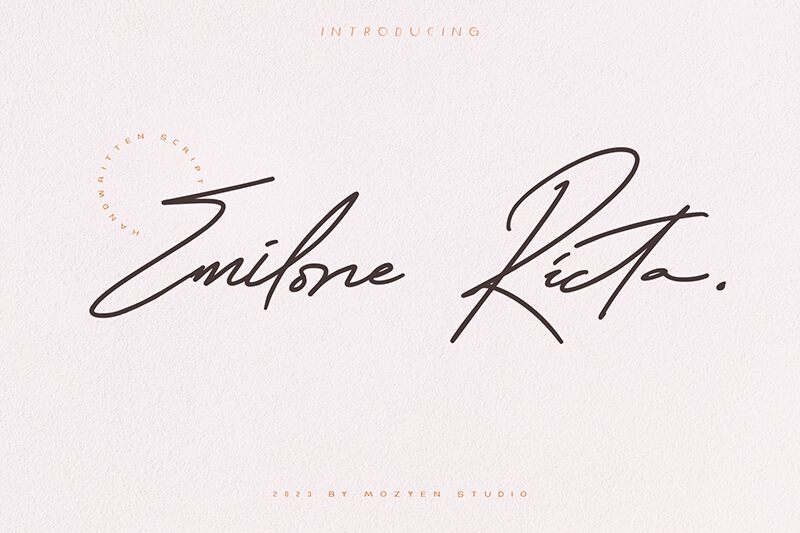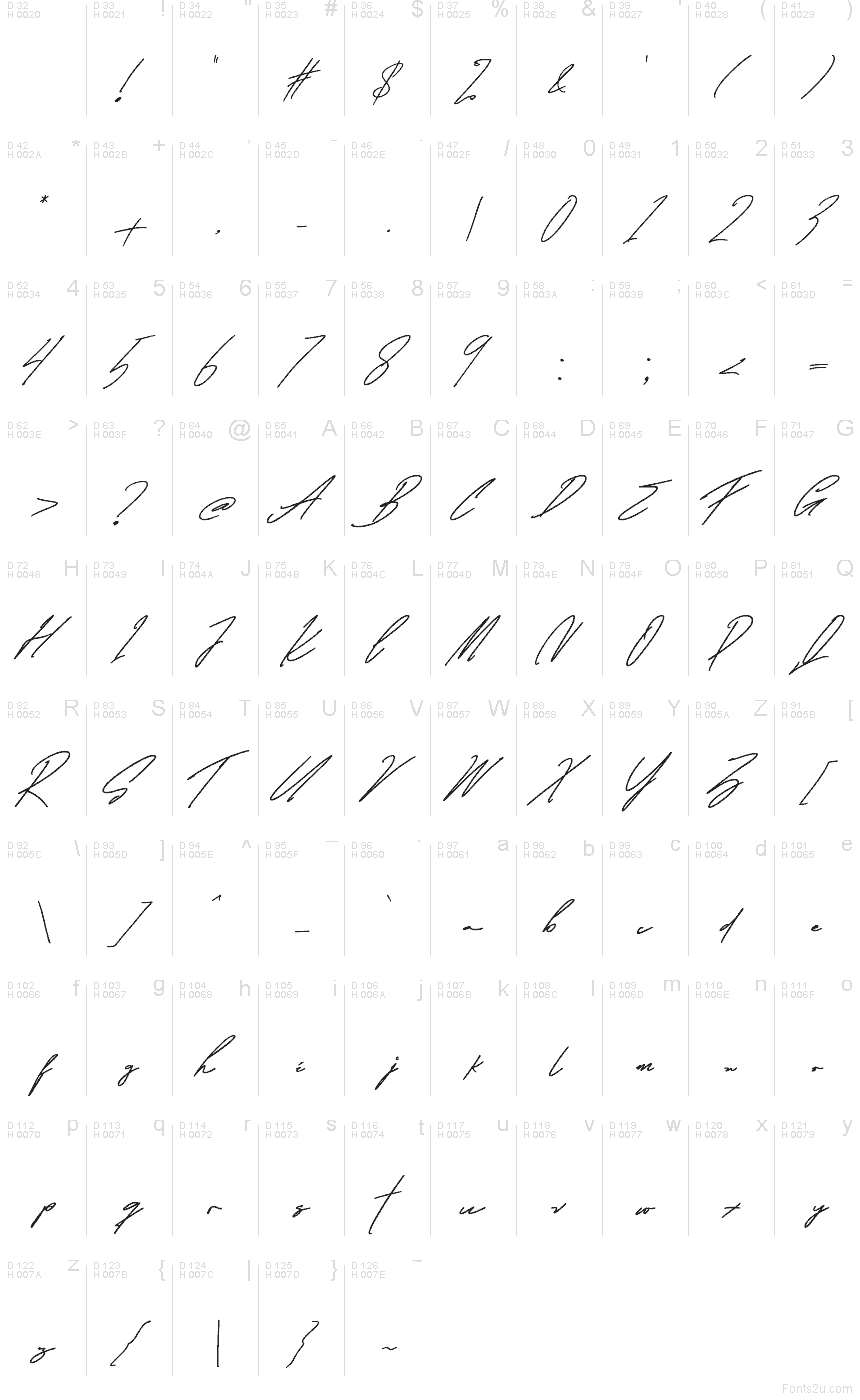
Emilone Ricta by Mozyen Studio is a free signature-style handwritten font with a fashion-sketch ease and a long, sweeping rhythm. The letters move like one quick pen pass, mixing airy loops with sharp finishing strokes so the whole font feels personal, light, and slightly dramatic.
It fits branding for beauty labels, boutique packaging, social media headers, wedding stationery, and magazine cover lines, where that signed look does the work fast. As a free font, it also suits title cards, logo lockups, and short pull quotes, especially when you want a name or phrase to feel written rather than set.
Emilone Ricta